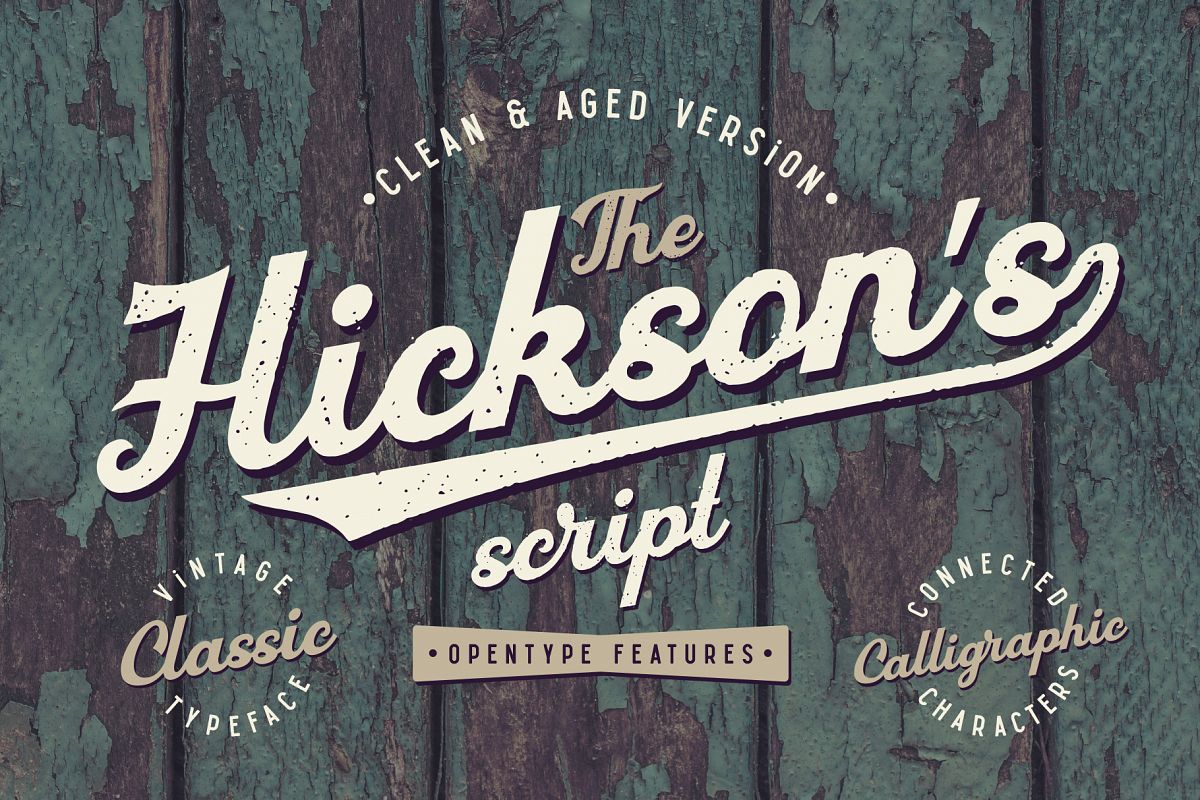
Introducing calligraphic vintage script named "Hickson's". It has a
classic authentic look and two variations with clean and aged textured
characters. This font has lots of OpenType features, like ligatures,